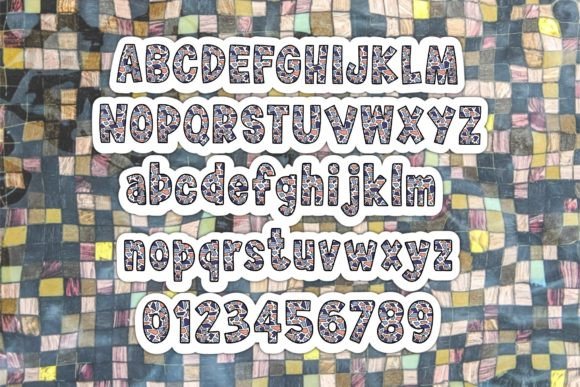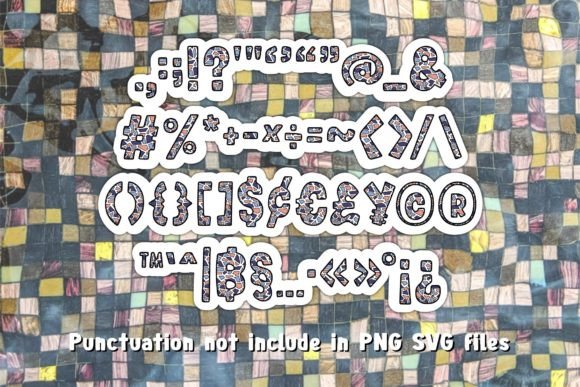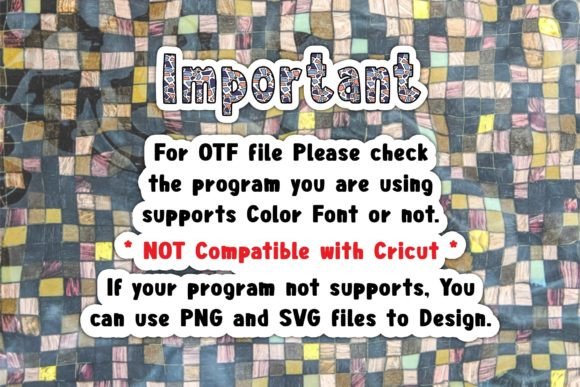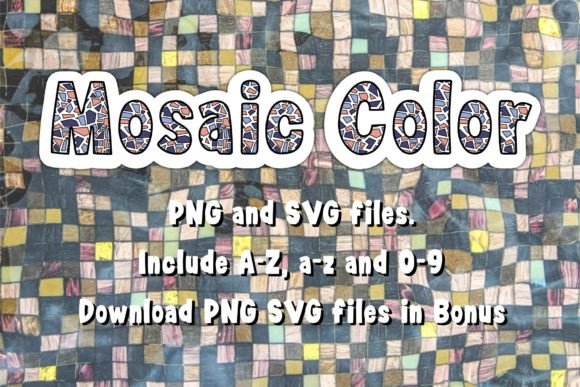
Introduction to Mosaic Color Font
You’ve been staring at your design project for hours, and it’s missing that one special something. You want to add a pop of personality, something that will make your design stand out from the crowd. That’s where the Mosaic Color Font comes in – a fun, quirky font that’s perfect for adding a playful touch to your creative project.
With its transparent background and versatility, the Mosaic Color Font is ideal for a wide range of applications, from book covers to posters, packaging to merchandise. Whether you’re working on a commercial project or a personal creative endeavor, this font is sure to bring a smile to your face and a touch of whimsy to your design.
Key Features of Mosaic Color Font
• Unique Mosaic Color Font design that combines different colors to create a visually appealing effect, ideal for creative projects.
• Features a transparent background, allowing for easy layering and customization in design projects.
• High-resolution design suitable for both print and digital applications, including web design, graphic design, and more.
• Supports a wide range of languages, making it a versatile design resource for global creative projects.
Honest Review: Mosaic Color Font
I recently stumbled upon the Mosaic Color Font and I have to say, it’s been a game-changer for my design projects. This font is a great resource for designers who want to add some personality to their work. One of the things that stands out about the Mosaic Color Font is its ability to work seamlessly with a transparent background, making it perfect for creative projects that require a touch of elegance.
Here are some things that work well about the Mosaic Color Font:
• High quality design that looks great in various formats
• Easy to use and integrate into your design workflow
• Perfect for adding a pop of color to your design without overpowering the other elements
• May not be suitable for projects that require a lot of text or detailed typography
• Not as versatile as some other fonts in terms of font styles and variations
Tips for Getting the Most Out of Mosaic Color Font
To get the most out of the Mosaic Color Font, experiment with different font sizes, colors, and backgrounds. You can also use the font in combination with other design elements to create a unique and eye-catching design.
Common Use Cases for Mosaic Color Font
The Mosaic Color Font is a versatile font that can be used in a variety of creative projects, including graphic design, digital art, and even web design. Its transparent background makes it a great asset for creating seamless designs.